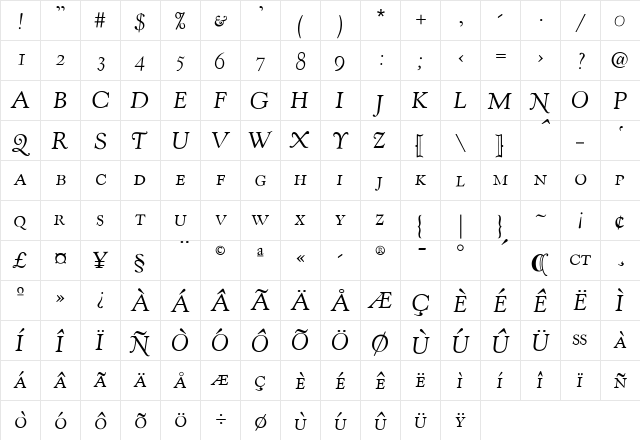
KennerlyHSC-Italic Italic Font Preview
KennerlyHSC-Italic Italic
KennerlyHSC-Italic Italic Font Details
| Foundry | Lanston Type Co Ltd |
Design Context for KennerlyHSC-Italic Typeface
KennerlyHSC-Italic is a composed and adaptable typeface that performs quietly and consistently across a wide range of design contexts. Its italic angle brings a sense of urgency and motion to the letterforms.